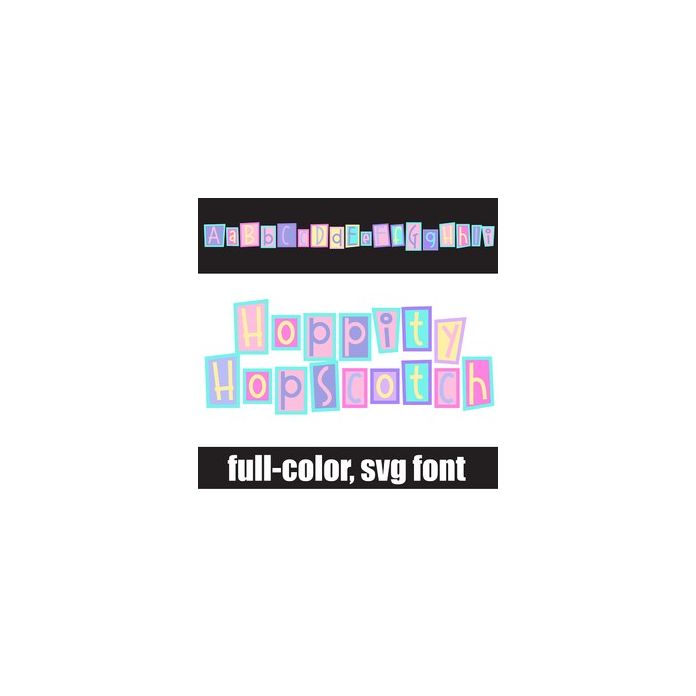
This full-color font features a pastel color hopscotch with whimsical, youthful lettering. There is an alt case w/ additional colors you can access through your system or Silhouette's glyph map.